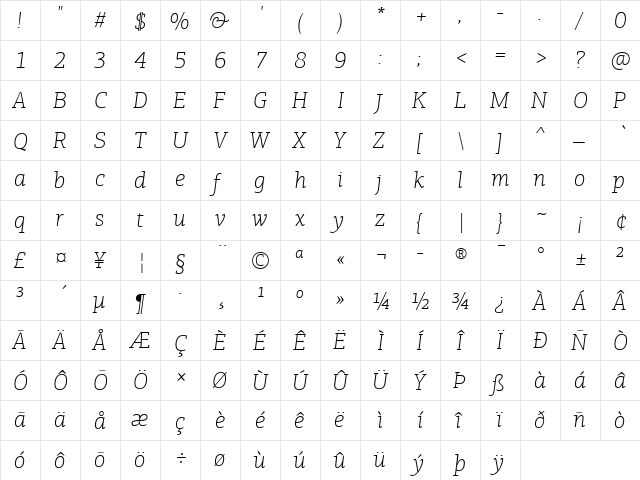
PF Agora Slab Pro Thin Italic Font Preview
Design Context for PF Agora Slab Pro Typeface
PF Agora Slab Pro combines the readability of serif typography with the visual weight of a slab construction, resulting in a typeface that feels both authoritative and approachable. The dynamic lean of this cut emphasises speed and emphasis in any layout. Its slender proportions lend an understated elegance to any composition.
Suited to magazines, political campaign materials, bold packaging, and any setting where authority matters.
Pro Tip: Use PF Agora Slab Pro for headlines and subheadings where its slab serifs can make an impression. It also holds up well in mid-size body copy thanks to its sturdy construction.